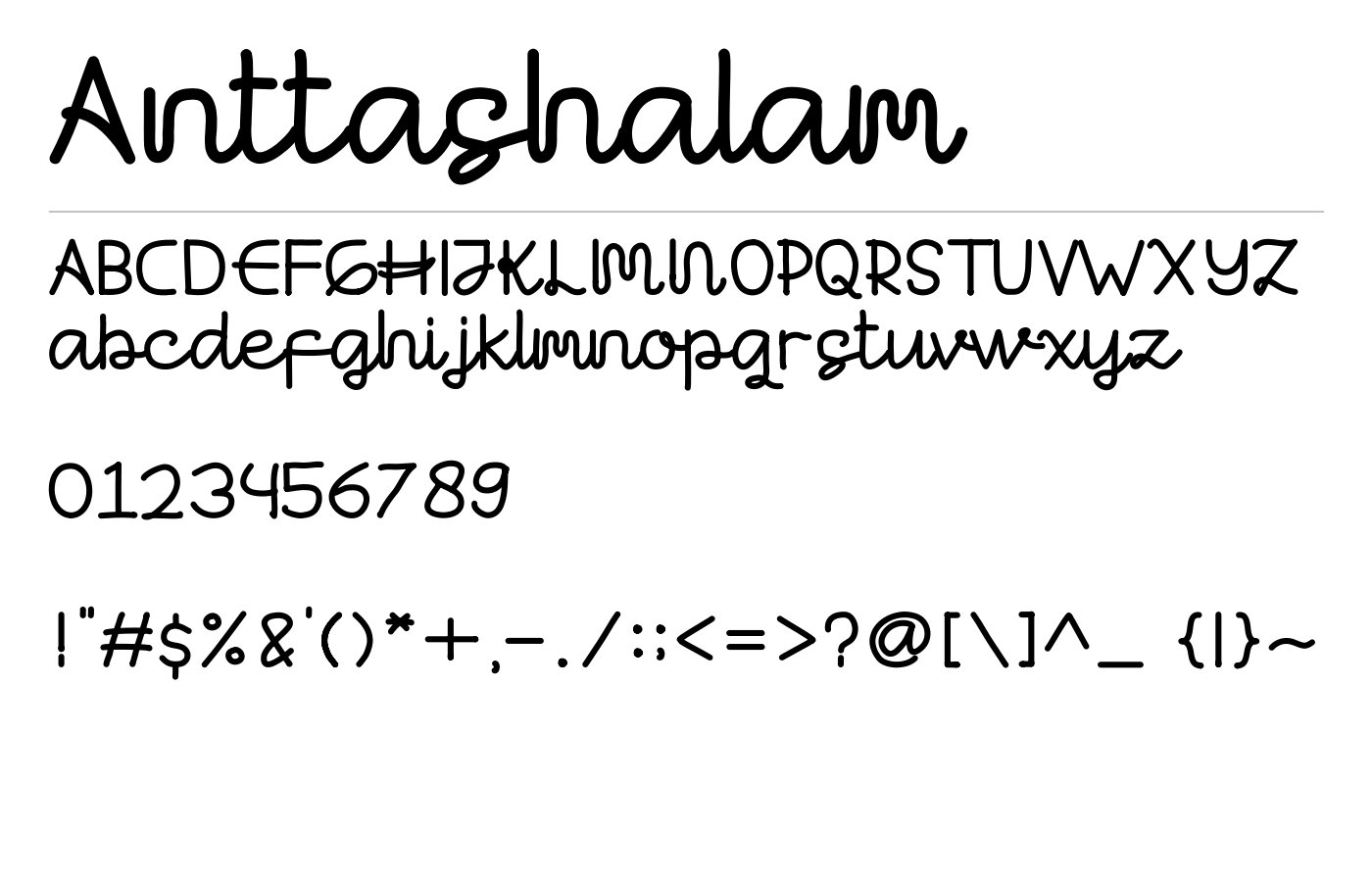
Anttashalam is a playful and casual handwritten sans serif font featuring rounded, slightly irregular strokes that give it a friendly and approachable feel. Its medium weight, moderate x-height, and informal letterforms make it ideal for creative projects, children’s designs, or any branding that seeks a personal, warm touch. This font works best in headlines, invitations, and packaging where a charming, relaxed vibe is desired.
Anttashalam Font